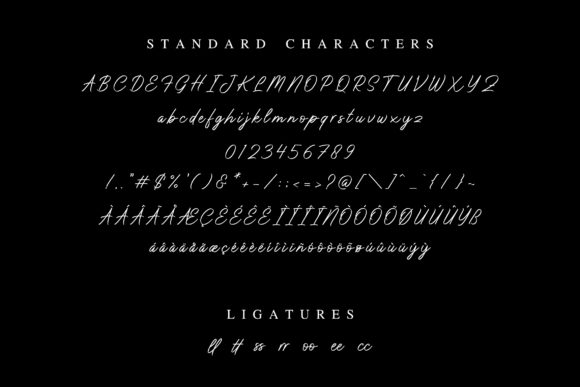
The Charm of Don Carlitto Font: A Designer’s Delight
I still remember the design project that led me to discover the beautiful Don Carlitto font. I was working on a wedding invitation suite, and my client was adamant about finding a font that exuded elegance and whimsy. After hours of scouring through font libraries, I stumbled upon Don Carlitto, and it instantly stole my heart. Its charming, handwritten aesthetic seemed to tick all the boxes – and my client’s too!
An Honest Review of Don Carlitto Font
What I Love About Don Carlitto ✨
- ✅ Elegant and charming handwritten aesthetic
- ✅ Perfect for wedding invitations, thank you cards, and greeting cards
- ✅ Great for adding a personal touch to logos and business cards
- ⚠️ Limited availability of stylistic alternates
- ⚠️ May not be suitable for very formal or corporate designs
The Story Behind Don Carlitto Font
While the origins of Don Carlitto font are shrouded in mystery, its design is undoubtedly inspired by the classic script fonts of the past. Imagine a talented type designer, pouring over vintage lettering samples and sketchbooks, seeking to create a font that captures the essence of elegant handwriting. And so, Don Carlitto was born – a beautiful, charming font that’s perfect for adding a touch of sophistication to any design.
| Font Name | Don Carlitto Font |
| Author | deemakdaksina |
| Q: What type of designs is Don Carlitto best suited for? | A: Don Carlitto is perfect for wedding invitations, thank you cards, greeting cards, logos, and business cards – any design that requires a touch of elegance and whimsy. |
| Q: Is Don Carlitto a difficult font to read? | A: No, Don Carlitto is highly legible, even at smaller font sizes. Its clear, elegant lettering makes it easy to read and understand. |